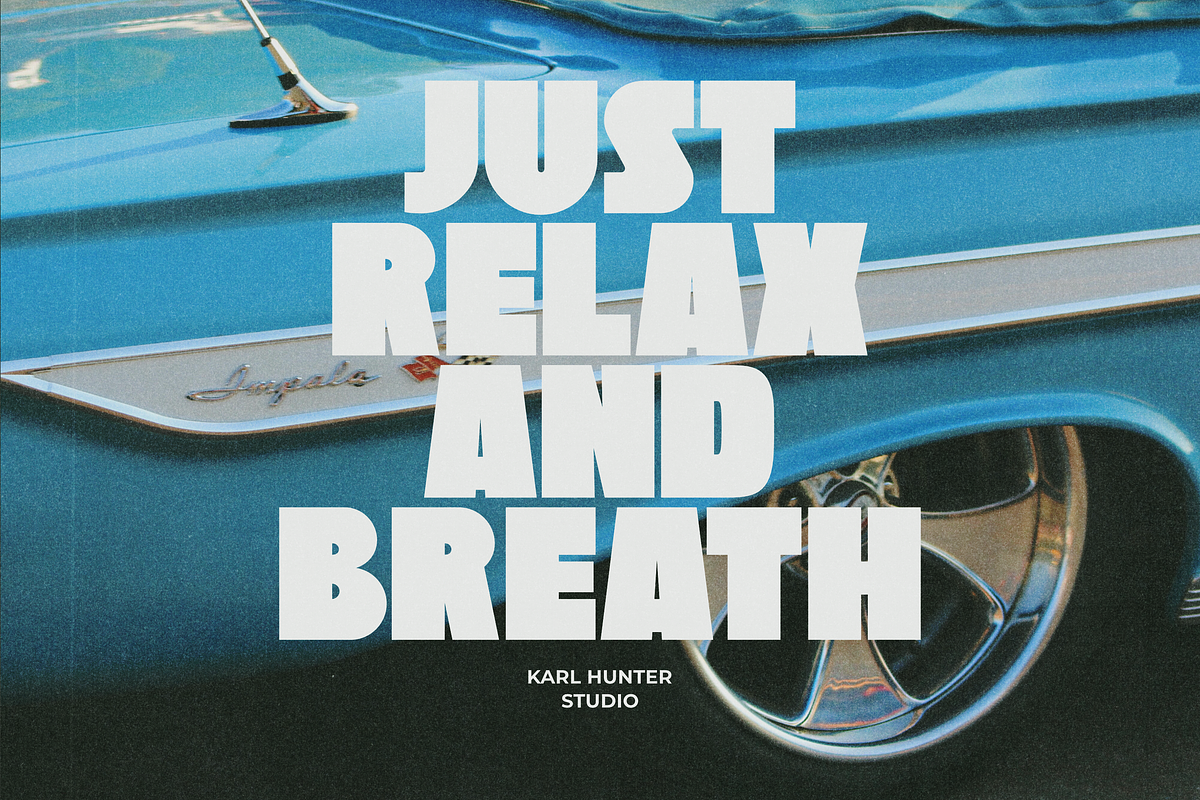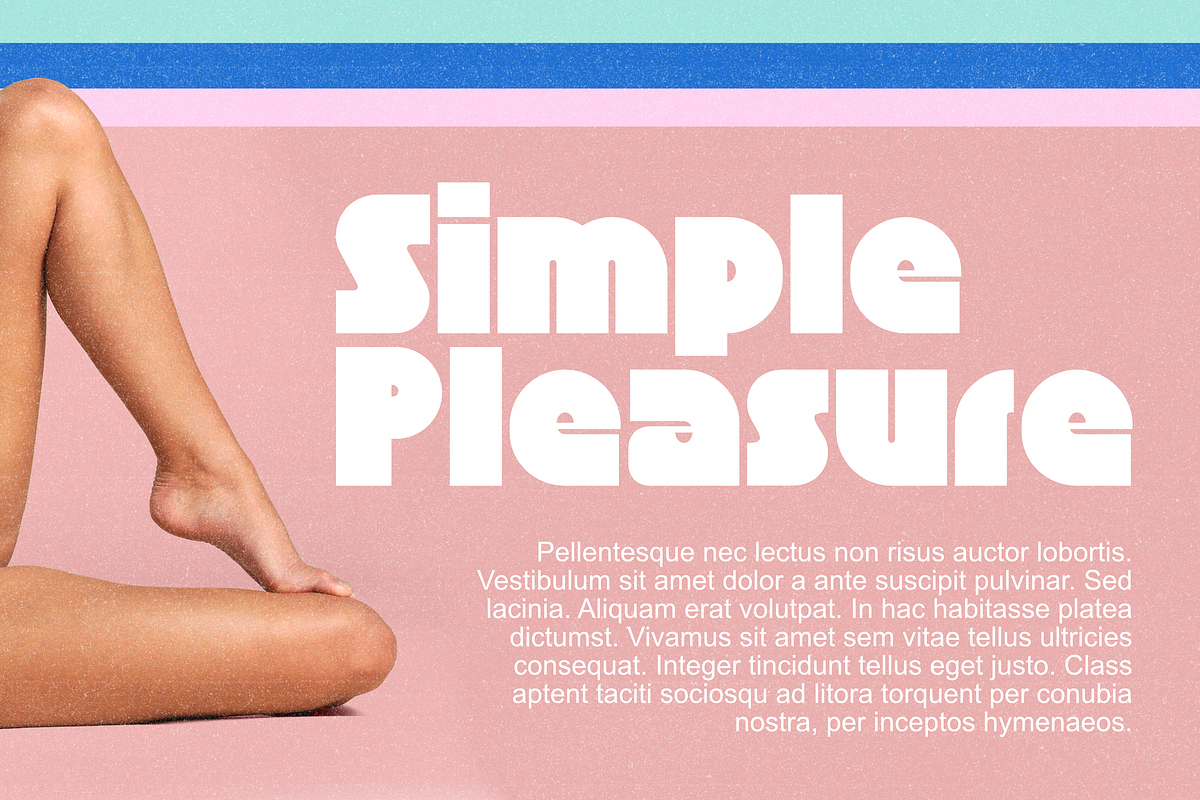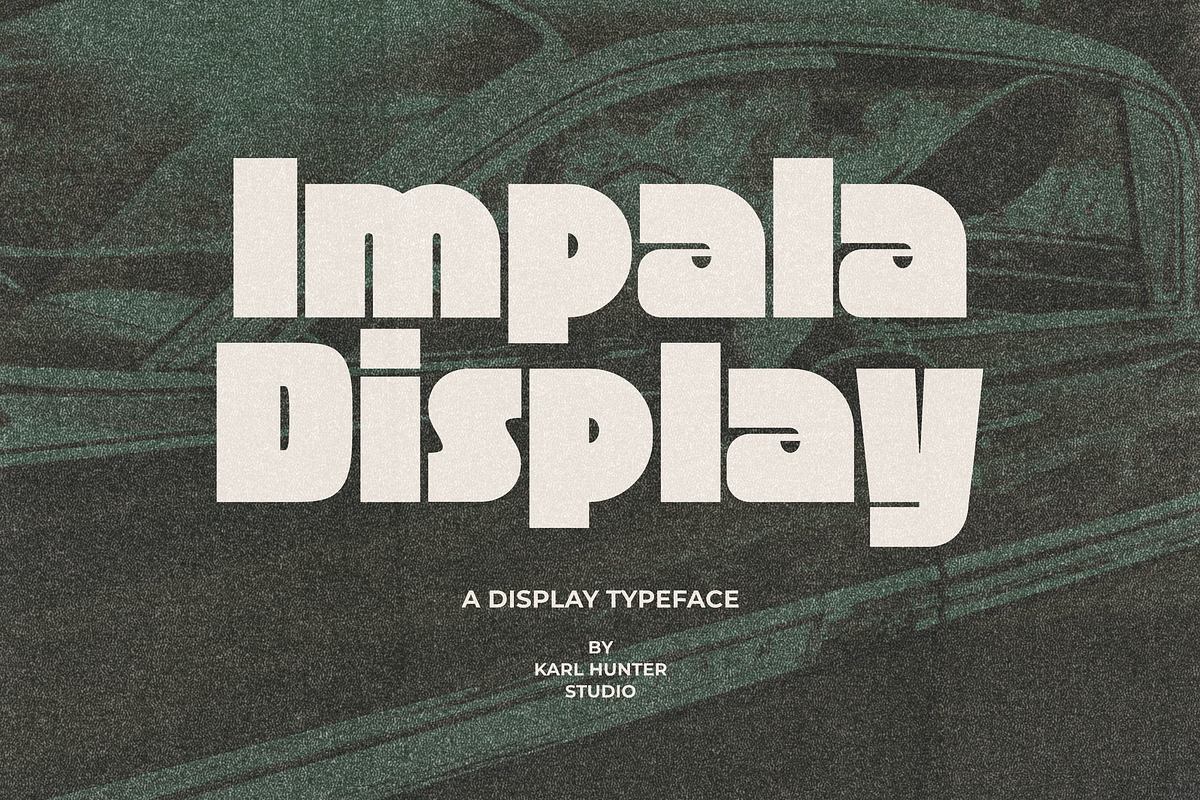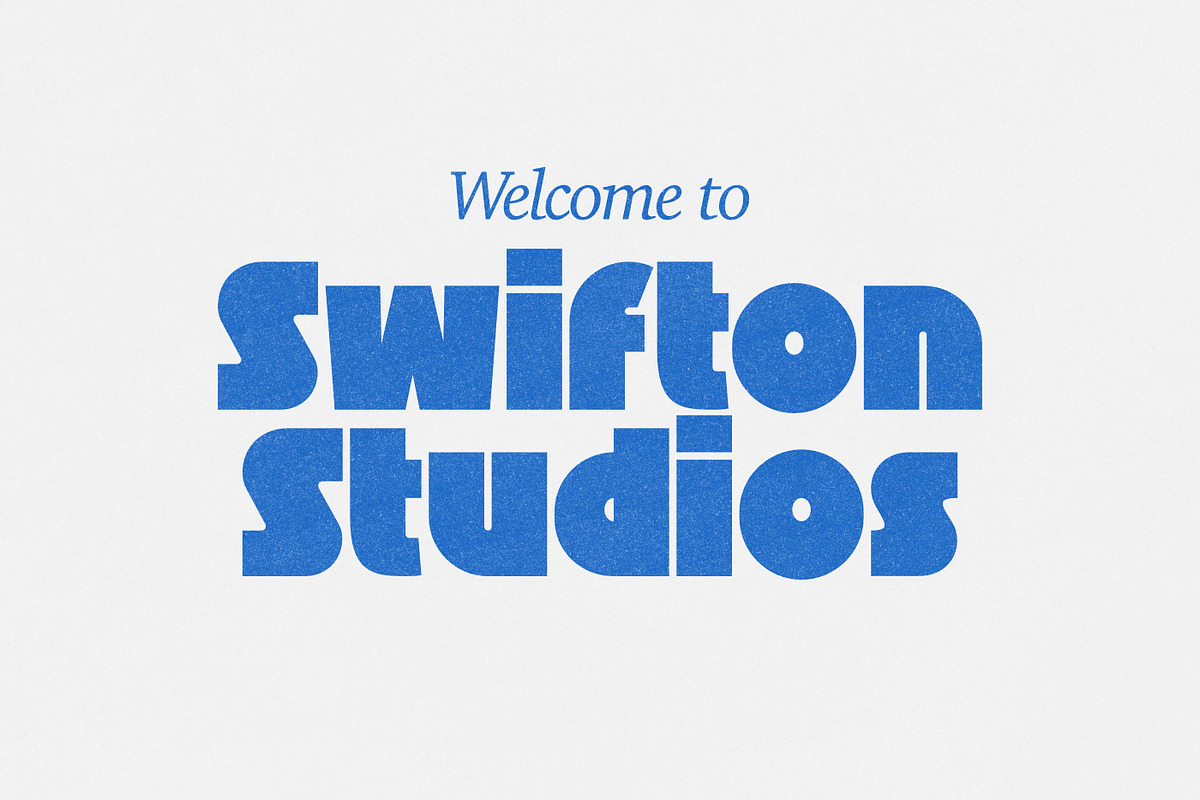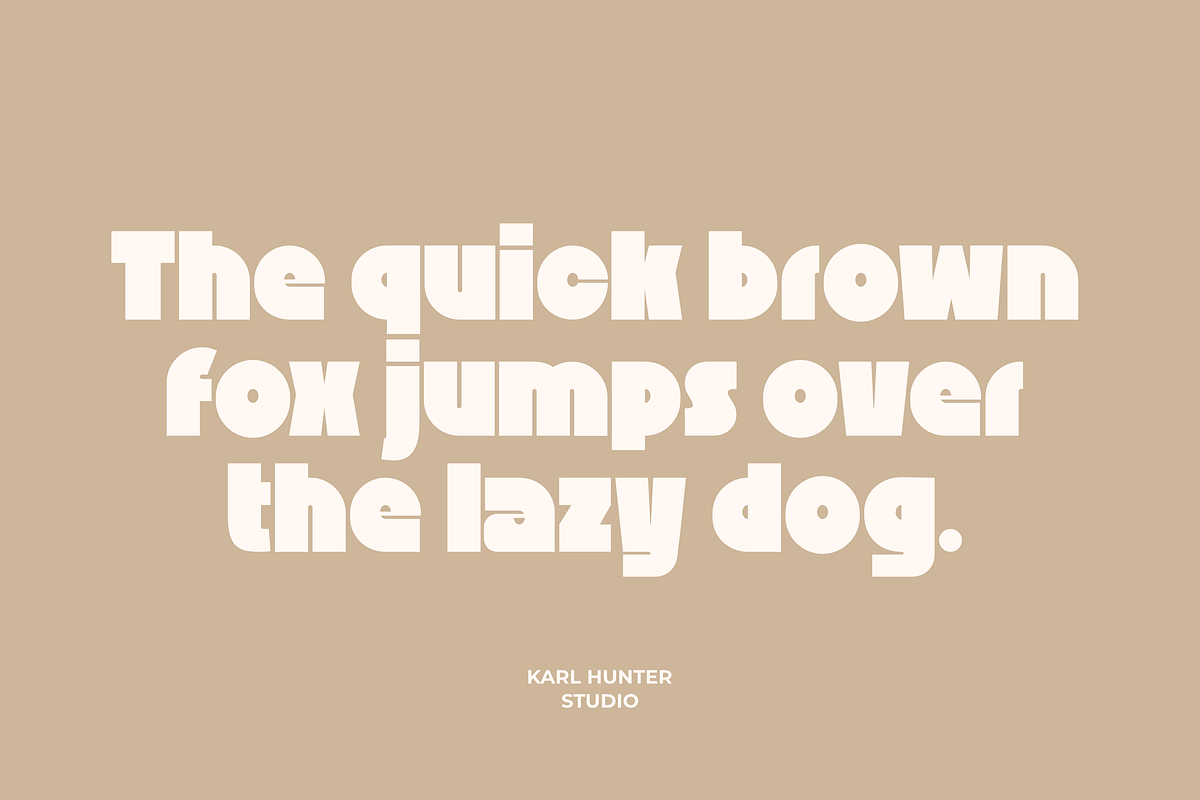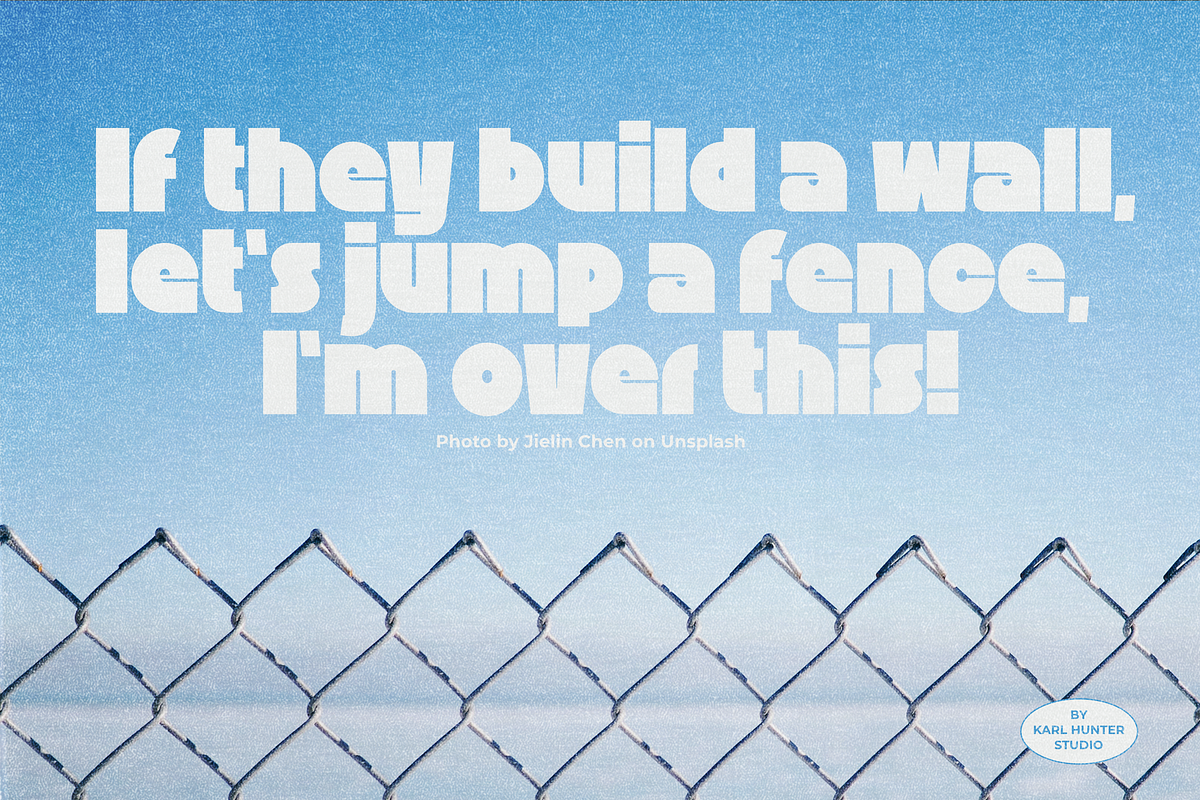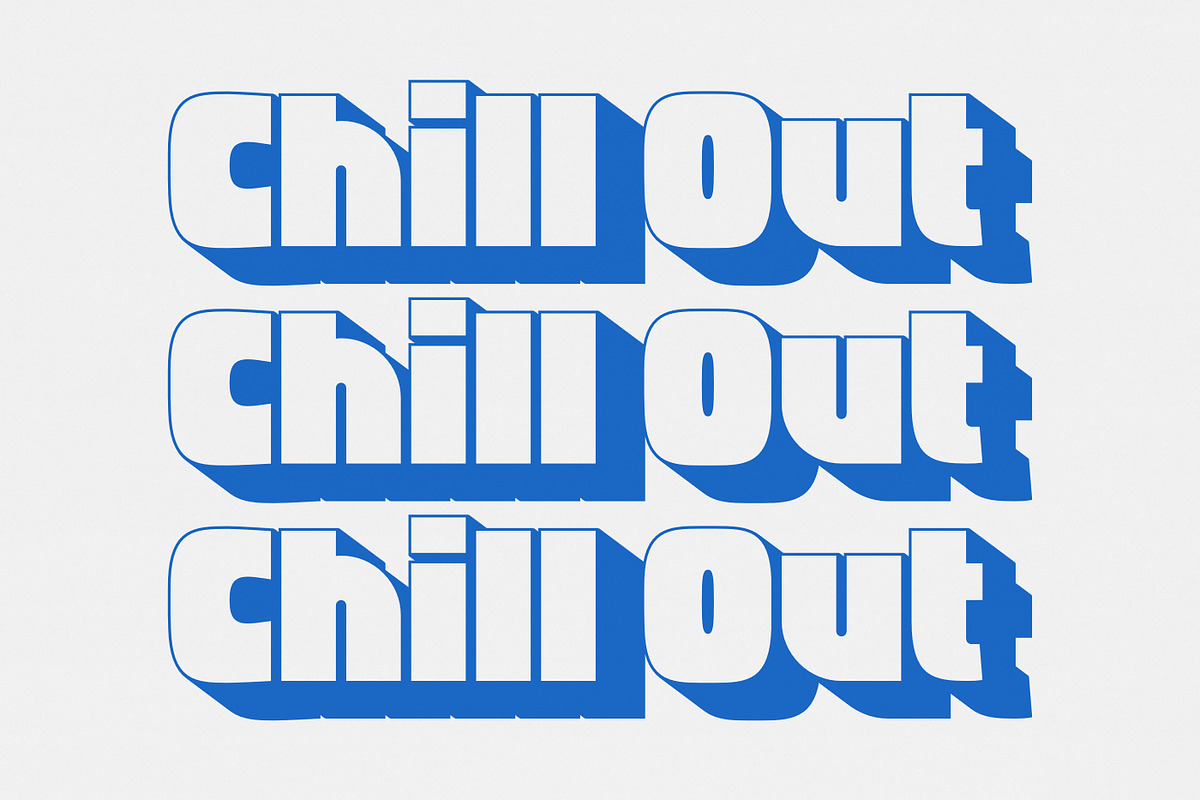
Impala Display
IMPALA DISPLAY is a bold retro inspired display typeface. A great choice if you want to add a retro look to your design. Perfect for headings, logos, or anything else that your creative brain can think of.
- Caps
- Lower Case